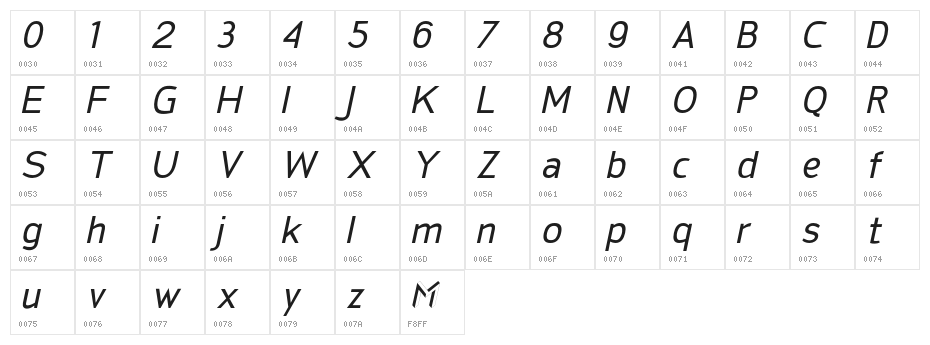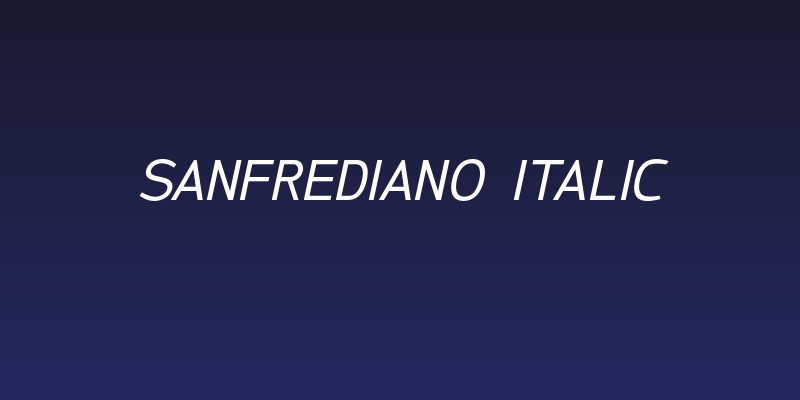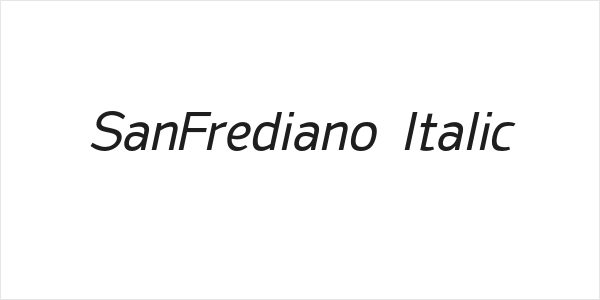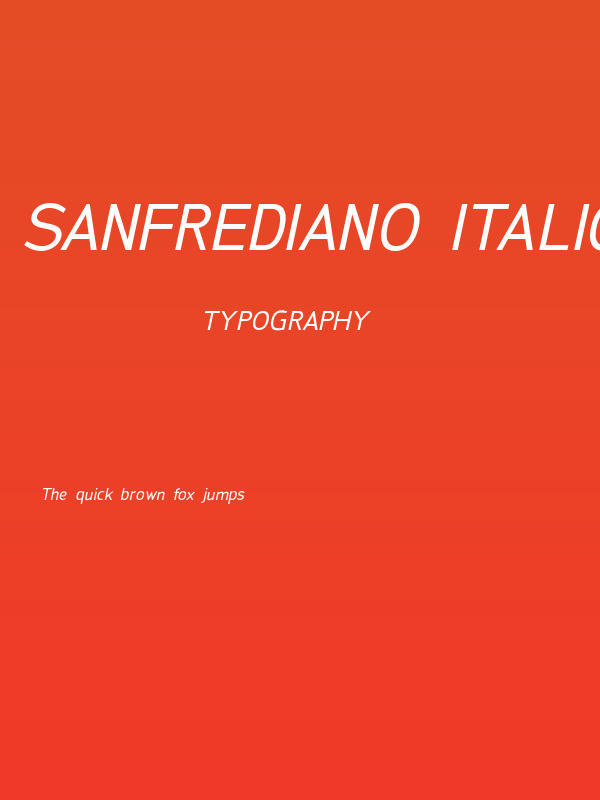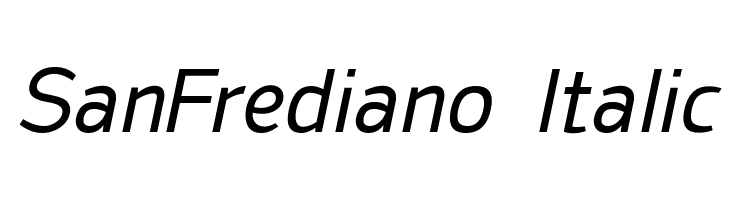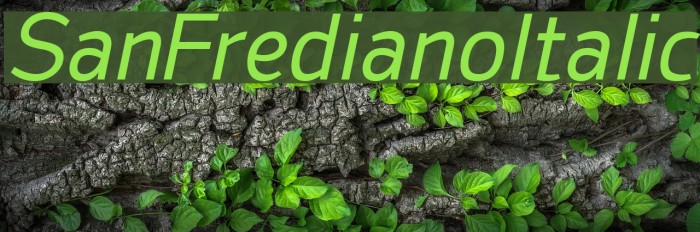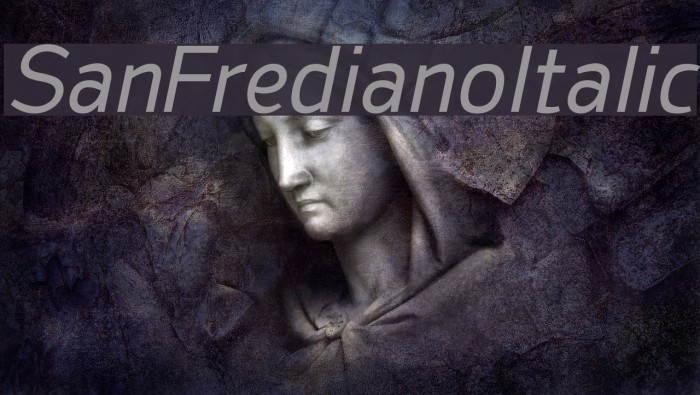
SanFrediano-Italic Font
SanFrediano-Italic Description
This font exhibits a sleek and modern italic style, characterized by its smooth curves and clean lines. The letters are slightly slanted, giving a dynamic and forward-moving appearance. The uppercase letters are bold and prominent, while the lowercase letters maintain a consistent flow. The numerals are clear and easy to read, matching the overall aesthetic of the font. The spacing between characters is balanced, ensuring readability and a cohesive look. This font is versatile, suitable for both digital and print media, and can be used in various design projects that require a contemporary and elegant touch.
| Use Case | Headlines, Body text, Logos |
| Proposed Projects | Ideal for branding, advertising, web design, and editorial layouts. |